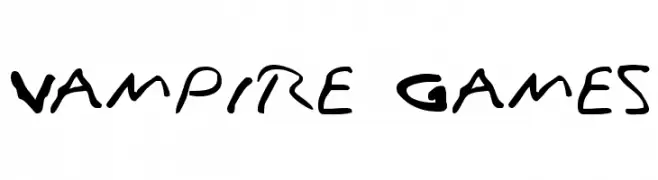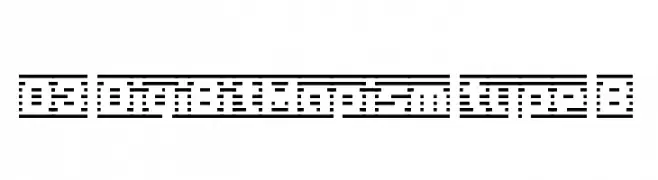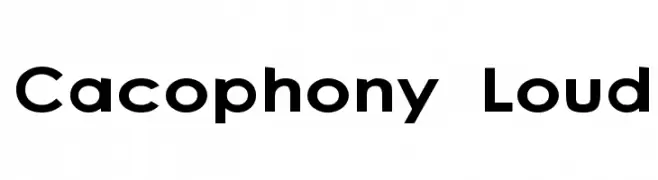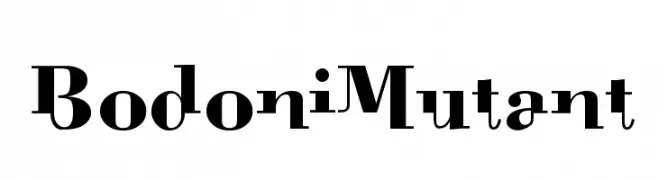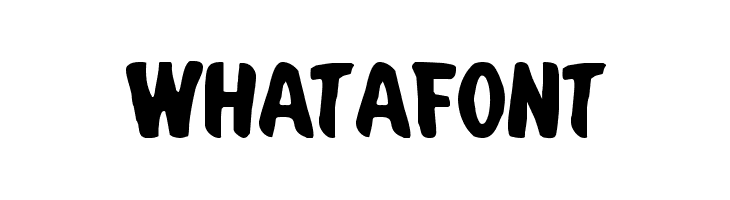
( Fonts by DeNada Industries - Mike Allard )
A bold, playful font with quirky, dynamic characters and sharp angles.
A bold, hand-drawn font with dynamic, irregular strokes and a playful yet aggressive style.
( Fonts by www.DigitalDreamDesign.net )
A pixelated, digital-style font with a retro tech aesthetic.
( Fonts by Graham Meade - GemFonts )
A bold, modern font with clean, geometric shapes and rounded edges.
( Fonts by Dieter Steffmann )
A bold, dynamic font with artistic flair and strong presence.